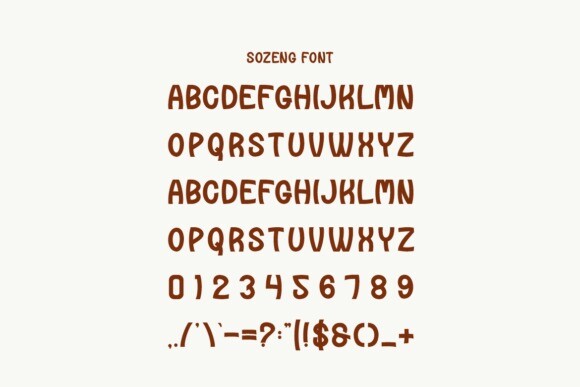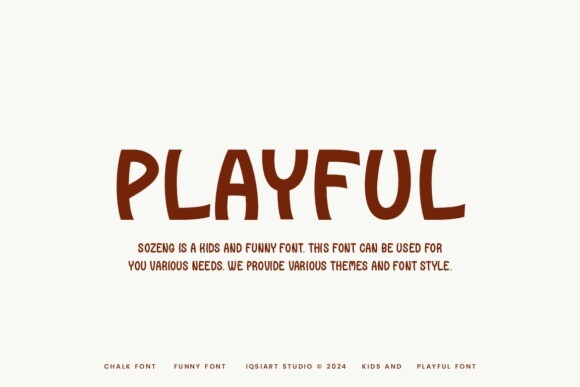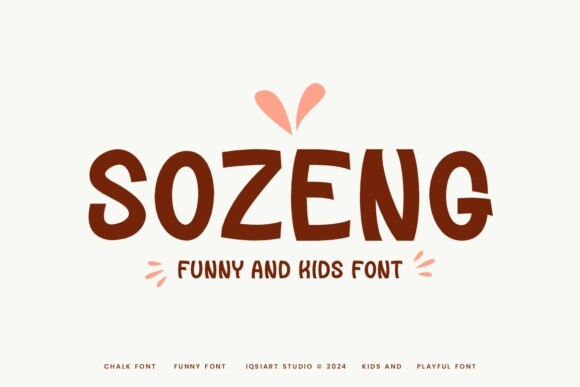
Sozeng Font
Designer: IqsiartStudio
Sozeng Font is a playful and fun font designed for kids. Its letters are bold, bouncy, and full of energy, making it perfect for children’s books, games, or any project that needs a cheerful and lighthearted look!